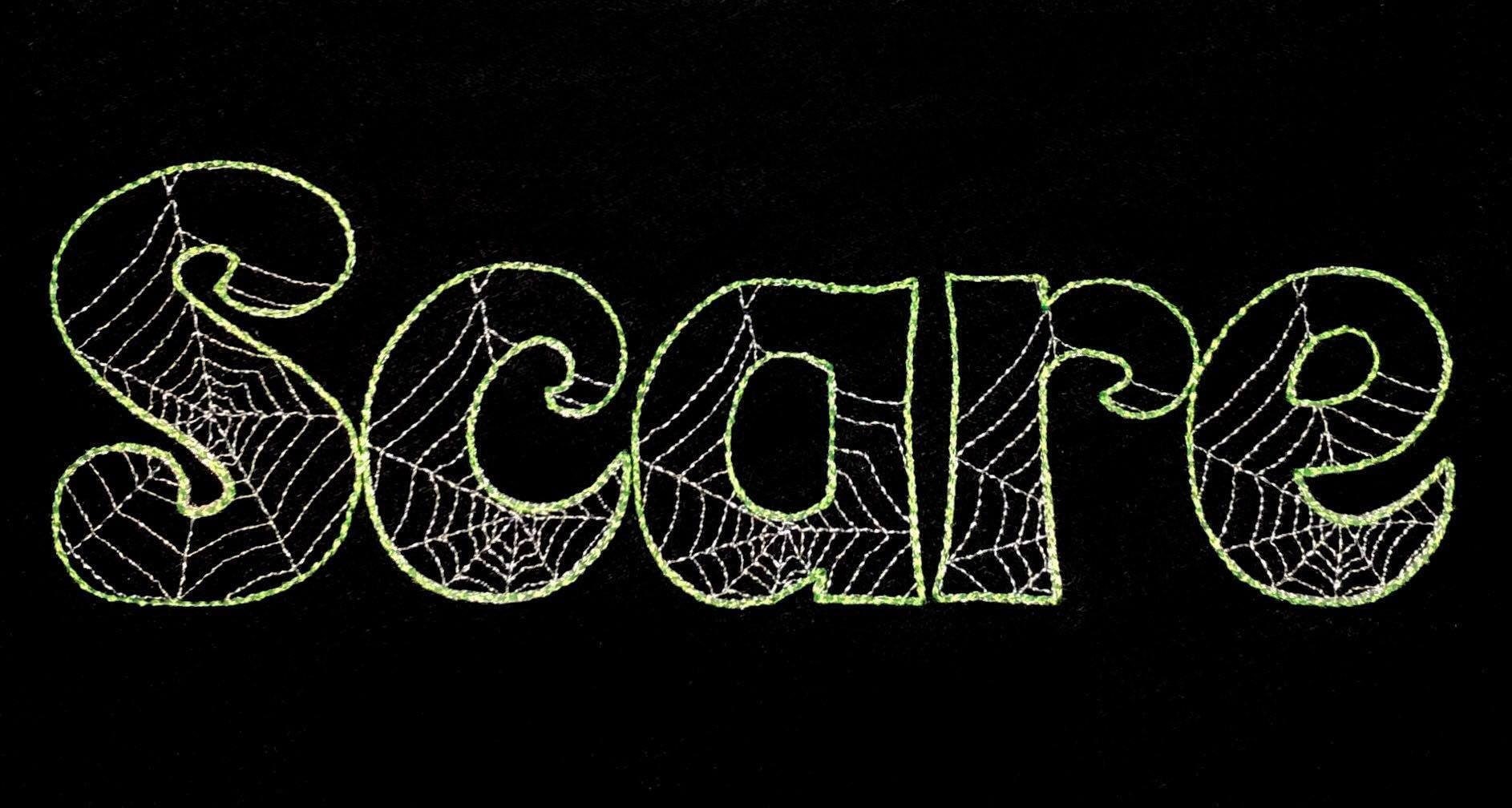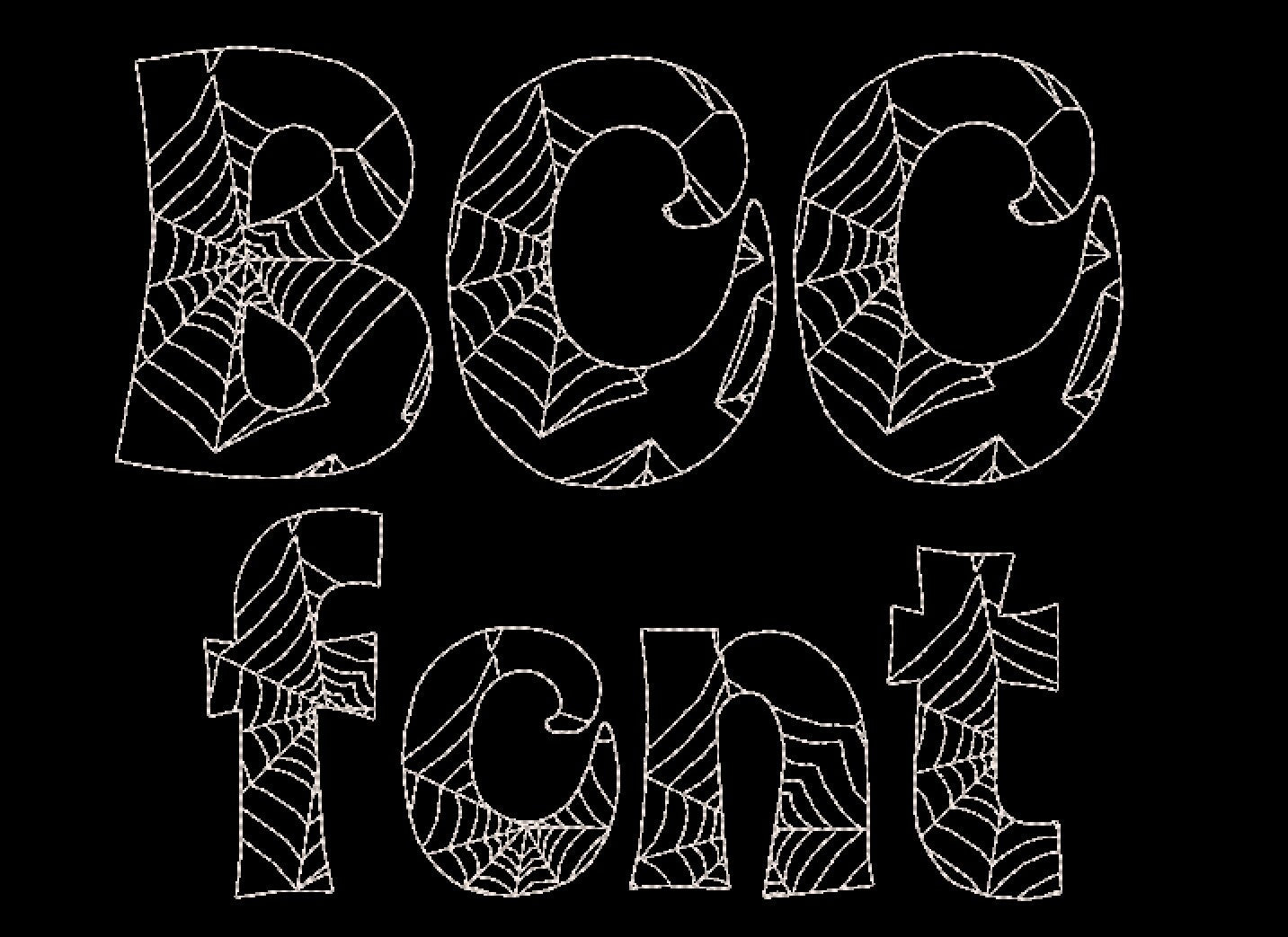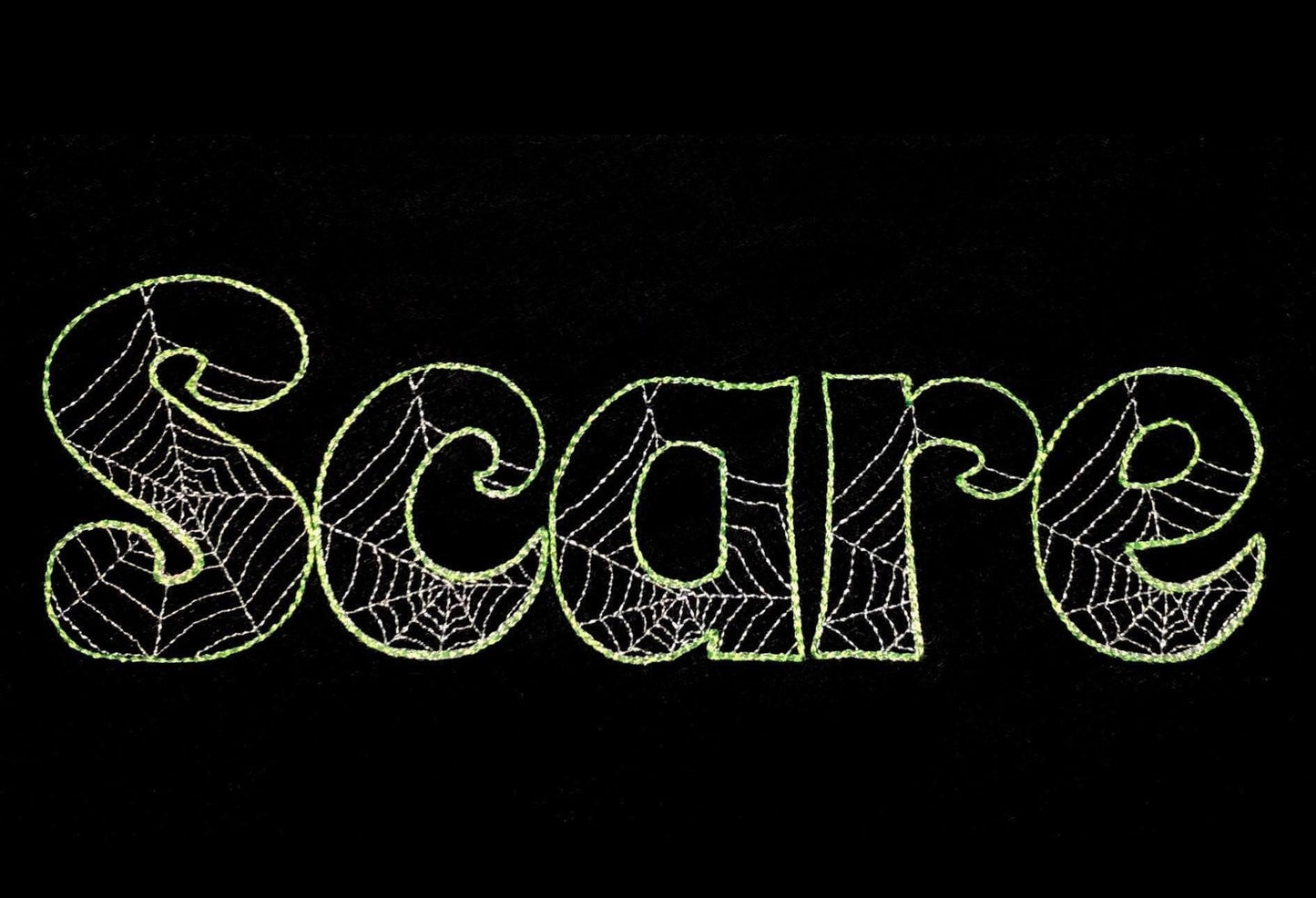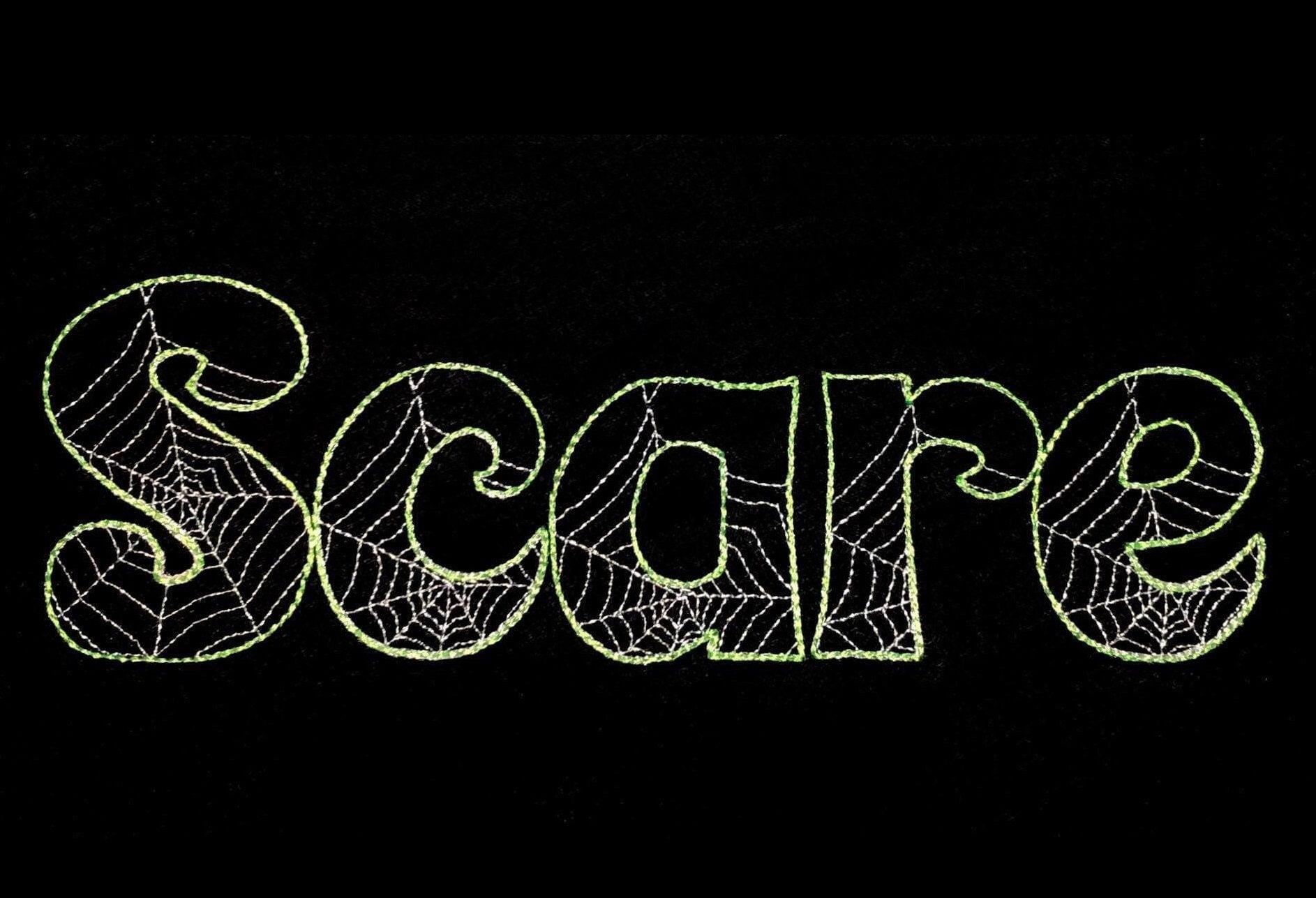
Or click to open the linkA Boo Halloween spider web font with a light sketch outline that looks like lace, for spooky kids' names on shirts and treat bags.
A quick stitch: the fabric shows through the web. Letters come in seven sizes: 1.5, 2, 2.5, 3, 3.5, 4 and 4.5 inches.